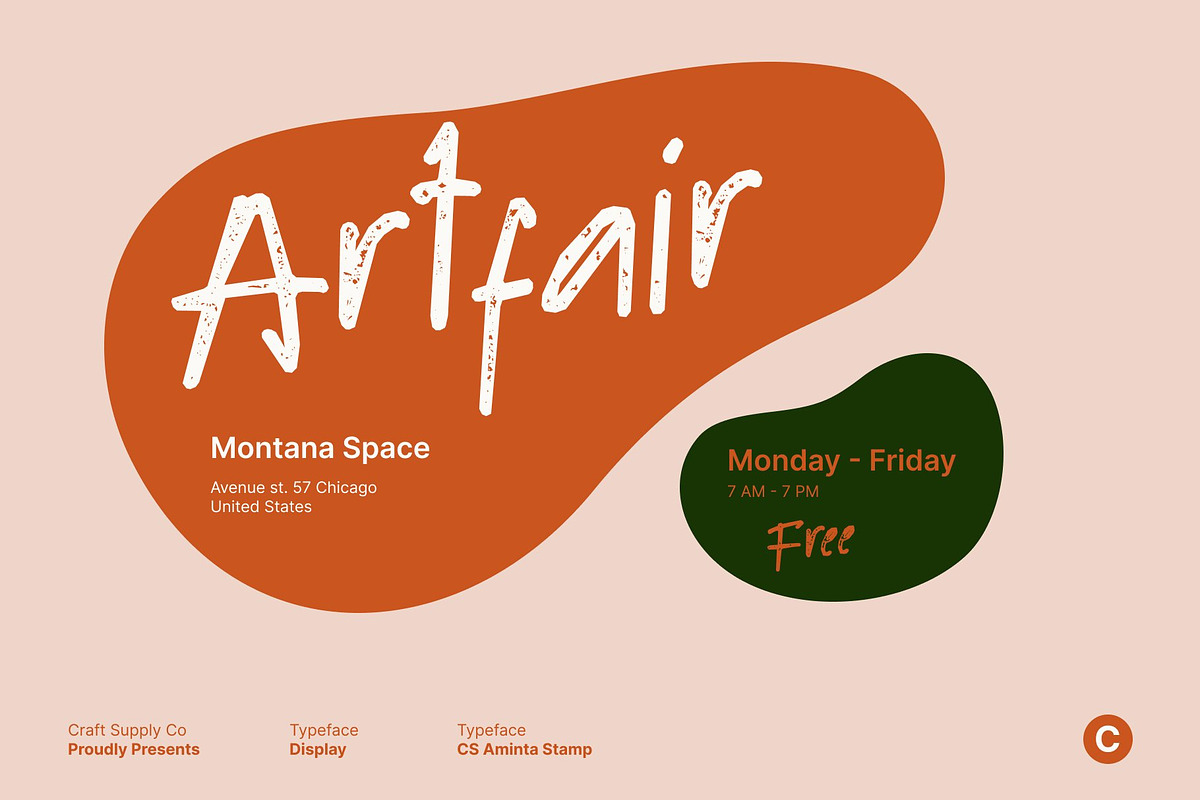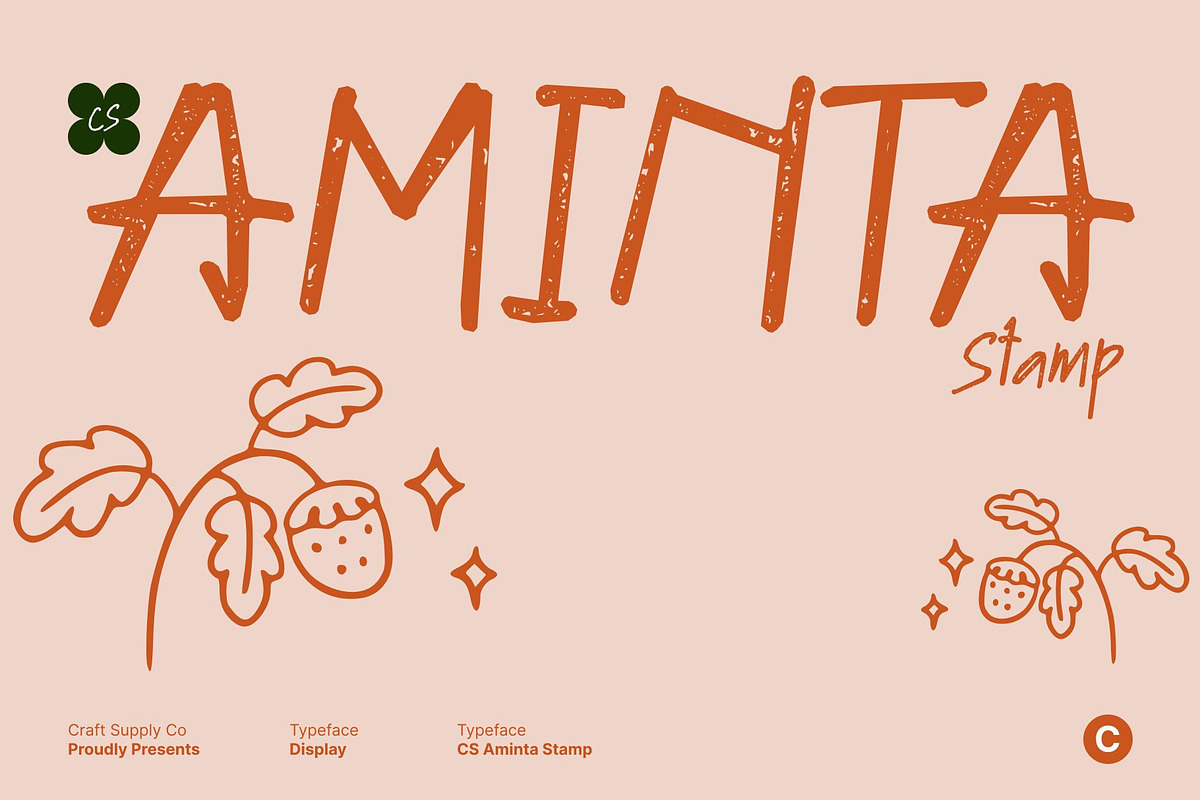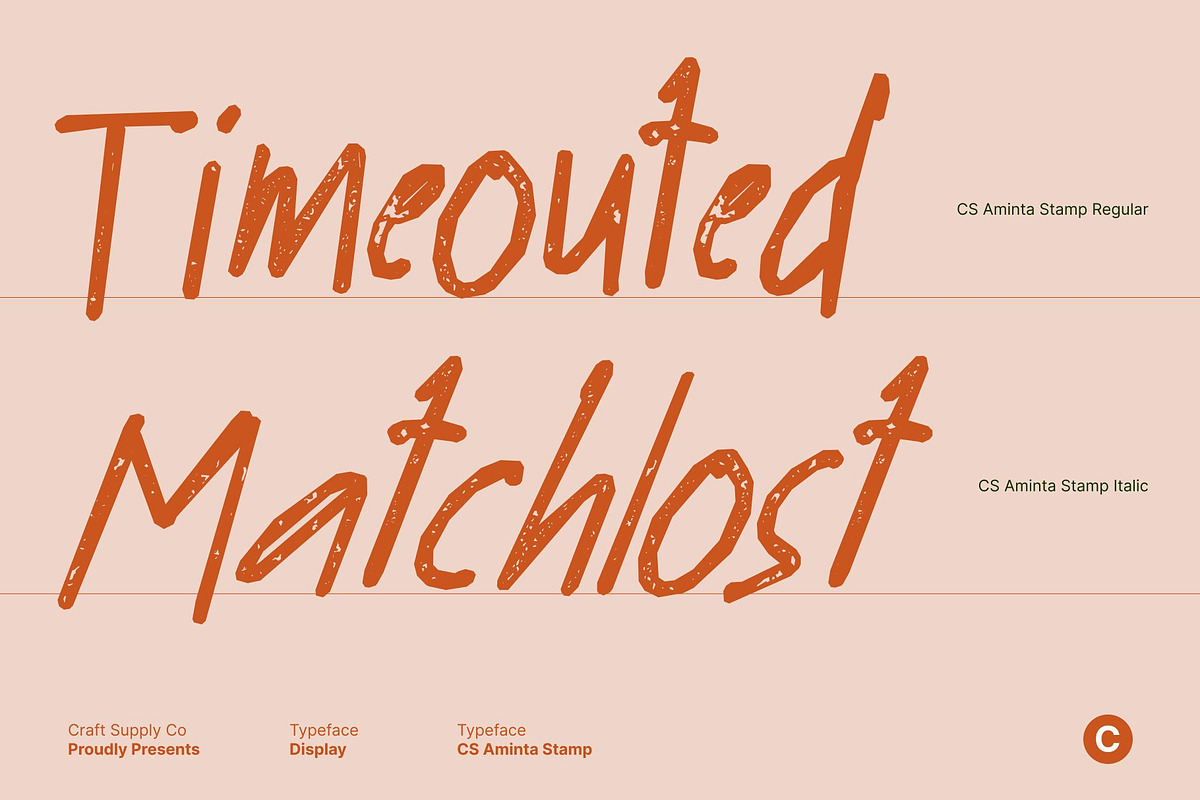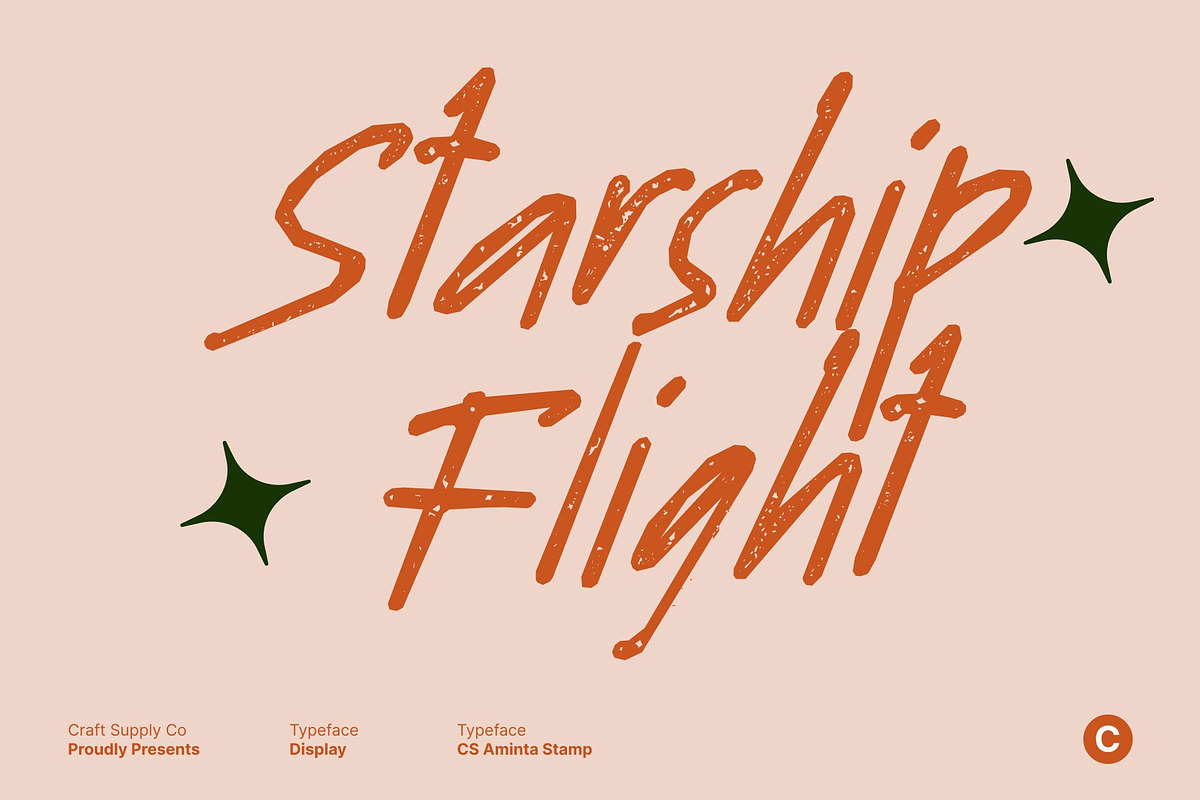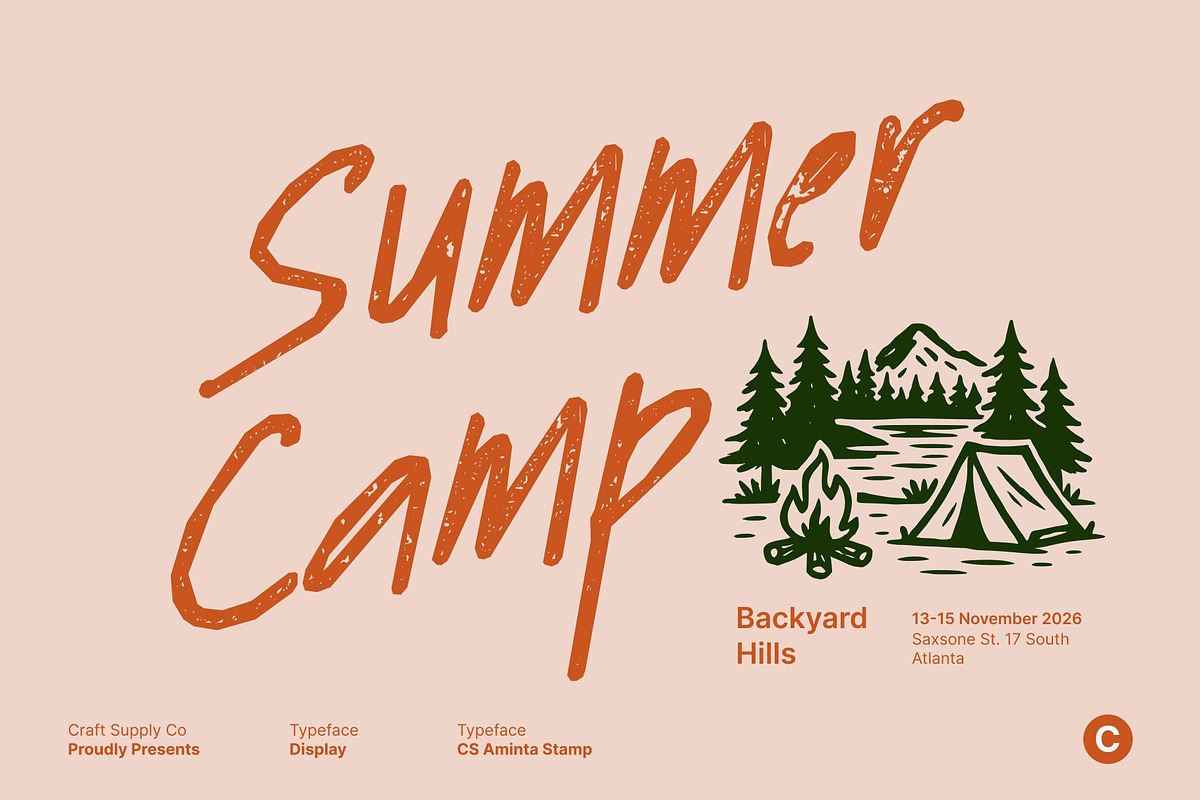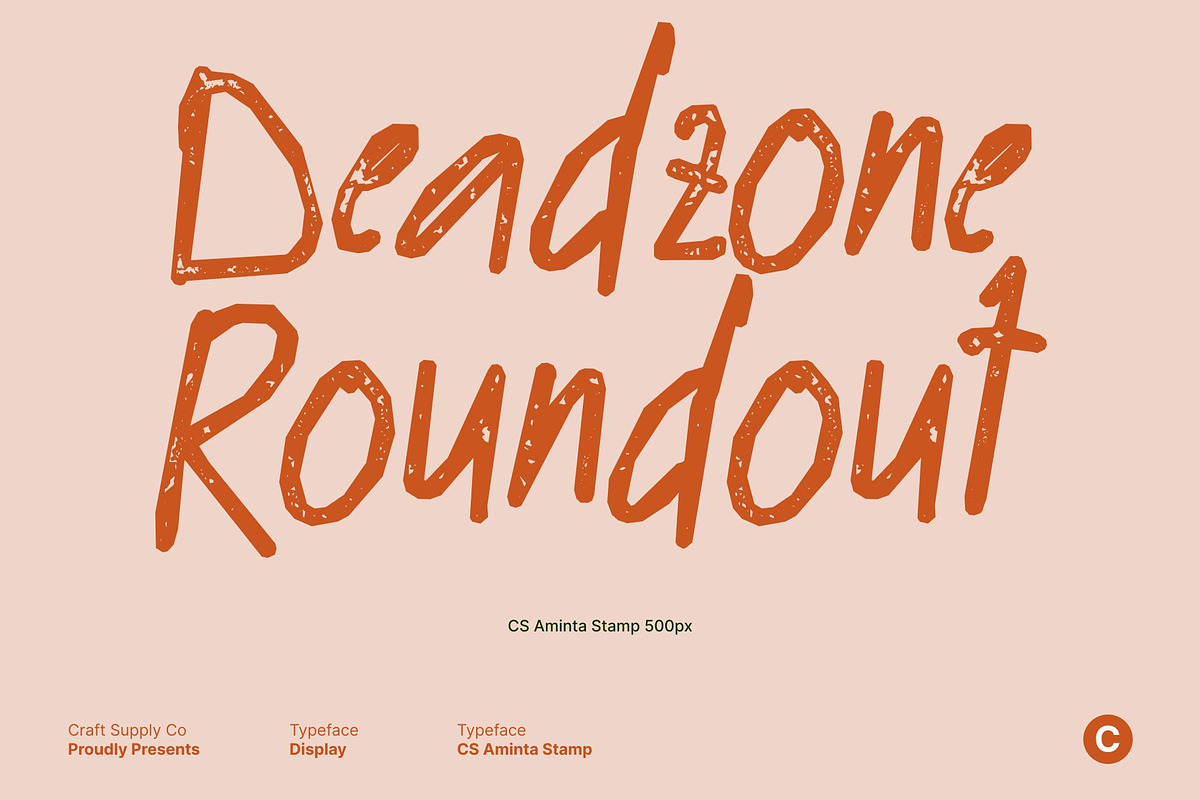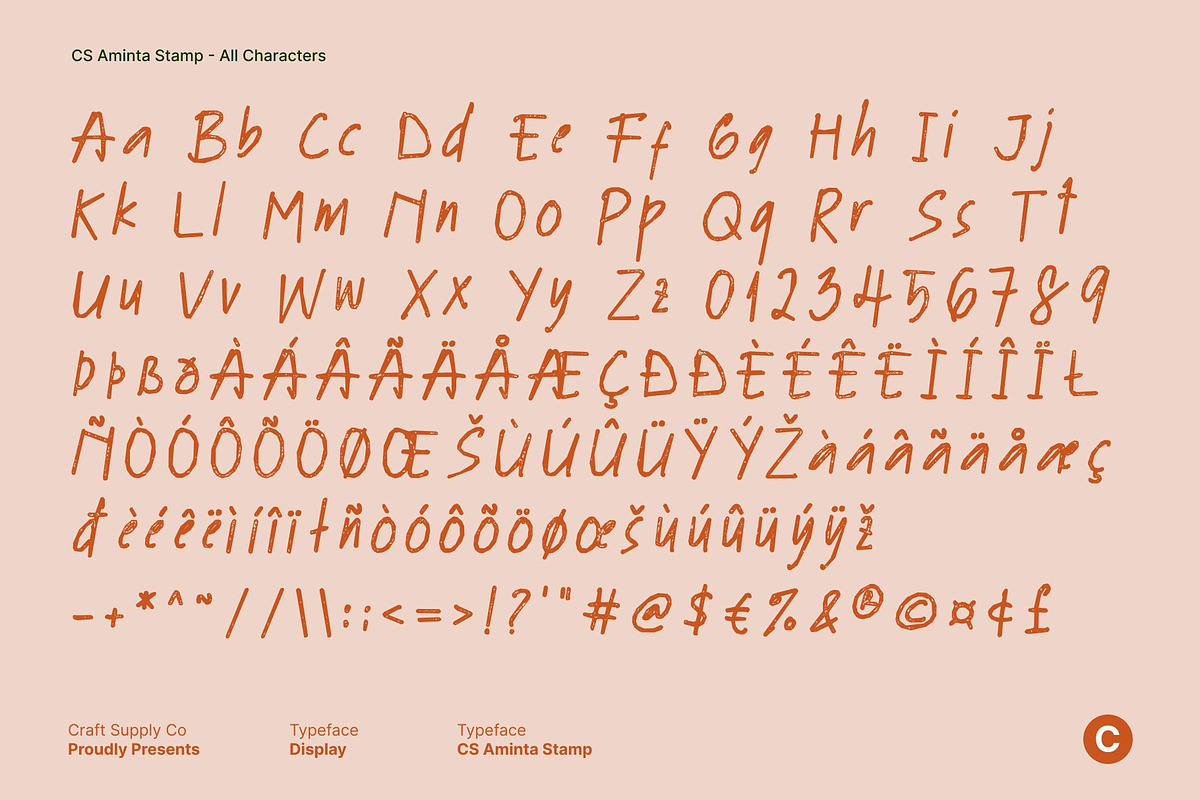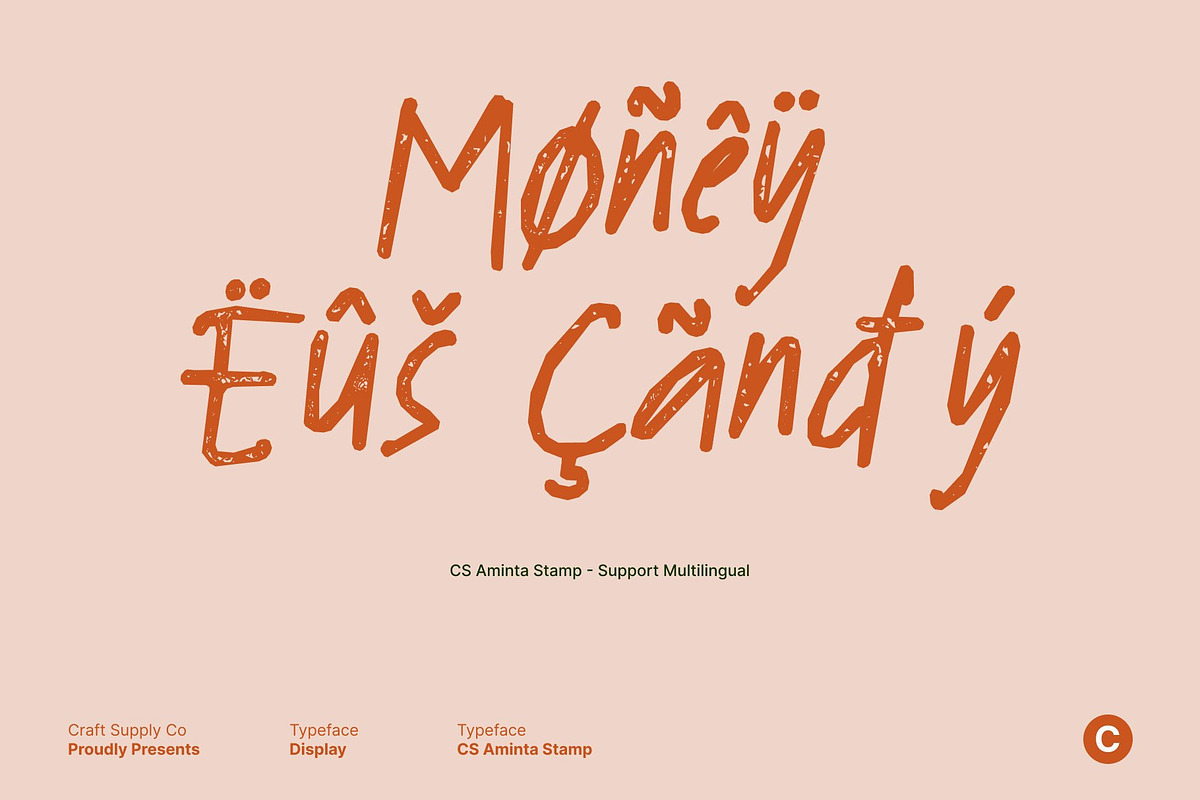
CS Aminta Stamp
CS Aminta Stamp – Natural Handwriting Font with Personal Charm
Authentic Handwriting with Genuine Pen-Stroke Texture This is a natural handwriting font crafted to capture the honest flow and charm of real pen strokes. Its relaxed letterforms and organic rhythm reflect genuine handwritten notes, delivering a warm and personal impression. The font feels sincere and approachable, making it ideal for designs that value human connection and emotional expression.
Stamp Texture for Organic, Handmade Character The subtle stamp texture adds depth and tactility, enhancing the handwritten style with a softly imperfect, handcrafted finish. This texture mimics the feel of ink pressed onto paper, introducing a natural roughness that strengthens the font’s authenticity. The result is a typeface that feels lived-in, expressive, and emotionally engaging rather than overly polished.
Smooth, Casual Strokes with Friendly Personality Each character flows with gentle, free-form motion, creating a casual and welcoming appearance. Slight irregularities in curves and spacing give the font an honest, human quality that feels relaxed and relatable. This friendly personality makes this font perfect for conveying warmth, openness, and everyday charm.
Ideal for Greeting Cards and Personal Invitations With its heartfelt handwritten style and textured depth, this font shines in greeting cards, invitations, notes, and personal stationery. It enhances emotional messages and helps designs feel intimate, thoughtful, and genuinely personal.
CS Aminta Stamp Regular
CS Aminta Stamp Italic